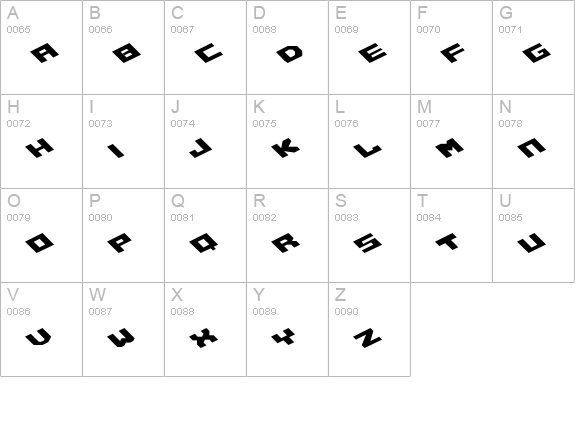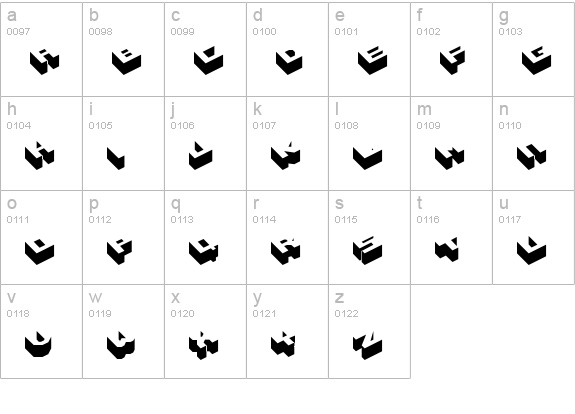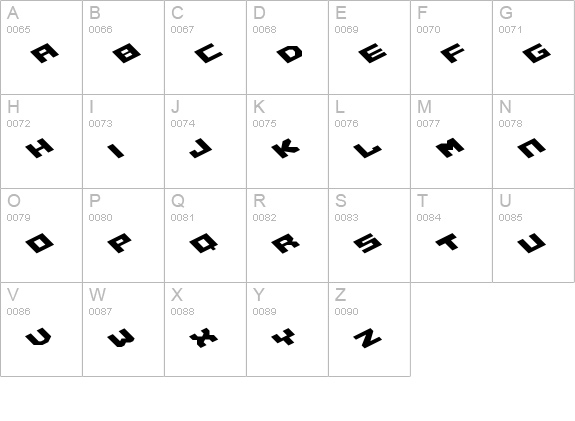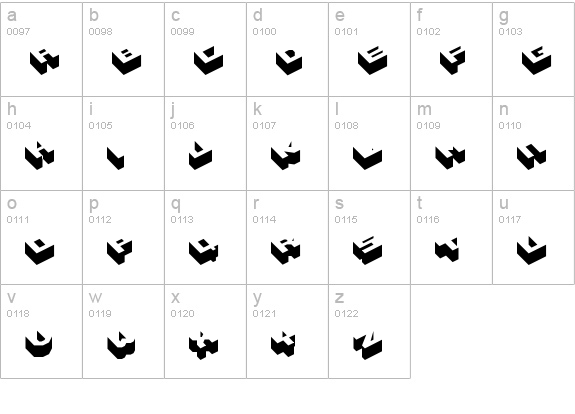
Hexagon Font Details
Hexagon font is a modern and stylish typeface that features a unique hexagonal design, making it perfect for creating eye-catching and innovative designs. The font's geometric shapes and sharp edges give it a futuristic and edgy look, making it ideal for logos, headlines, and other design projects that require a contemporary touch. What sets Hexagon font apart is not only its striking design but also the fact that it is available for free download at FontsMarket.com. This means that you can easily access this cutting-edge font without having to worry about any costs. Whether you're a professional designer looking to add a fresh look to your projects or a hobbyist looking to experiment with new fonts, Hexagon font is a must-have addition to your font collection. With its bold and dynamic appearance, Hexagon font is sure to make a statement in any design it is used in. So why wait? Download Hexagon font for free today and add a touch of modernity to your next project!